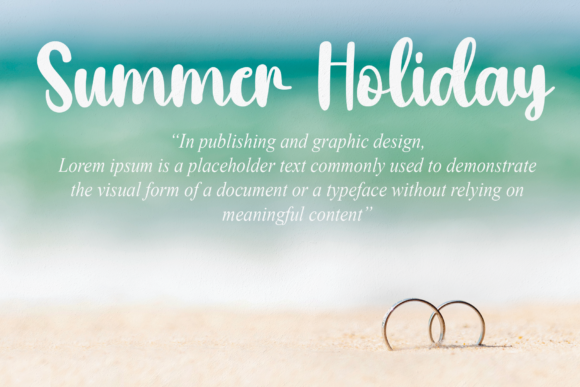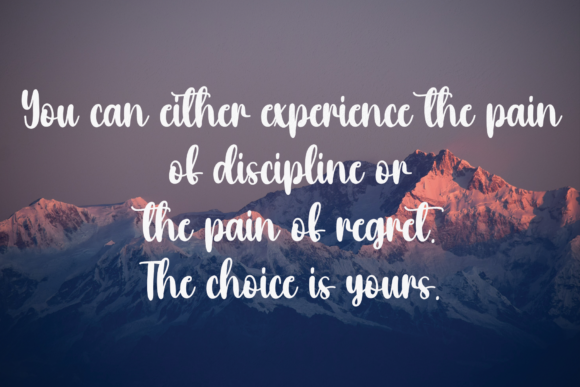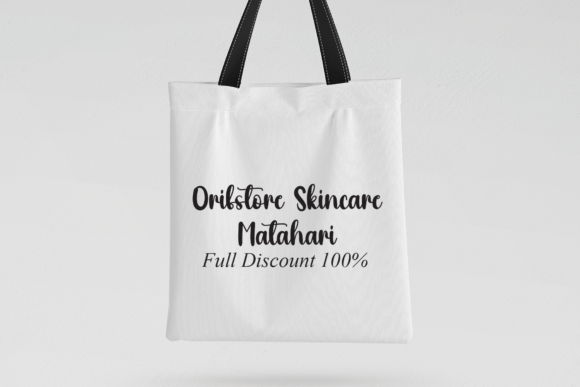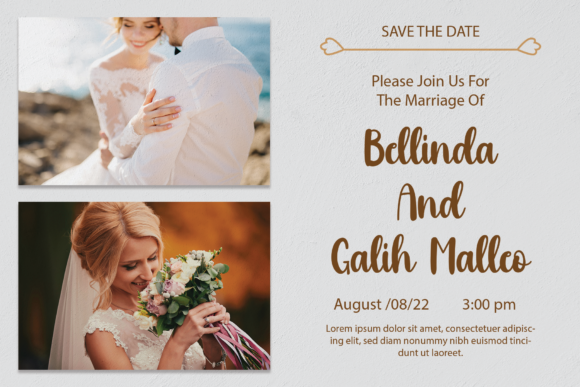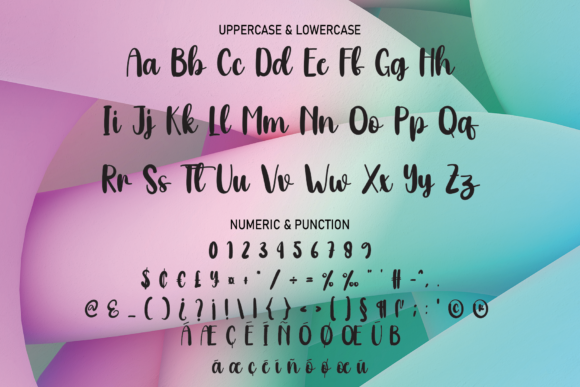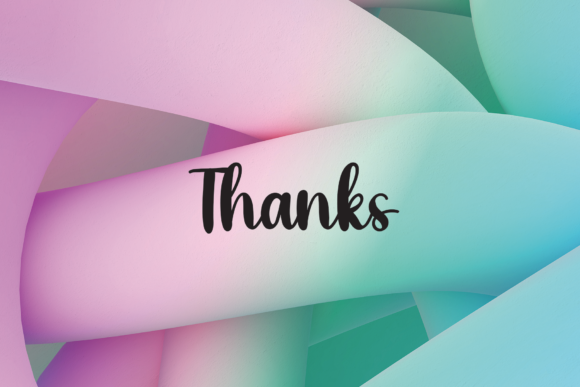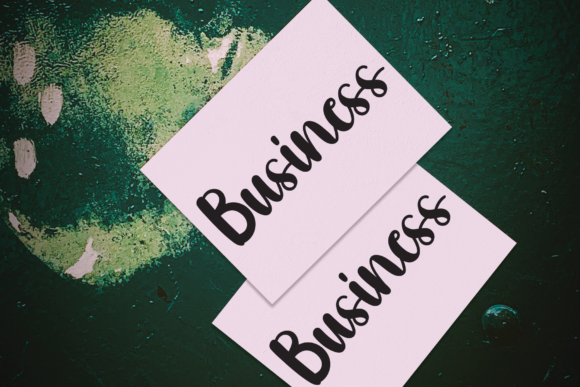
Groovy Font
About Groovy Font
Groovy is a modern and stylish script font that brings a touch of flair and sophistication to a wide range of design projects. With its trendy and fashionable appearance, Groovy is an excellent choice for various branding endeavors, including logos, t-shirt printing, and creative products.
When used in logo design and branding, Groovy makes a bold statement. Its unique and eye-catching letterforms instantly capture attention and create a memorable brand identity. Whether you’re working on a contemporary fashion label, a hip cafe, or a cutting-edge tech startup, Groovy’s distinct style adds a touch of modernity and creativity to your brand’s image.
T-shirt printing becomes a creative endeavor with Groovy as your font of choice. The font’s dynamic and expressive strokes lend themselves well to apparel designs, making your t-shirts stand out in a crowd. Whether you’re aiming for a casual, streetwear vibe or a more upscale fashion statement, Groovy’s versatility ensures that it complements your design concept seamlessly.
Creative products, from posters to packaging, come to life with Groovy’s extraordinary style. Its bold and playful nature adds a sense of fun and energy to product designs, capturing the essence of youth and modernity. Whether you’re designing album covers, book covers, or product labels, Groovy’s ability to evoke a trendy and fashionable aesthetic enhances the overall visual impact.
The font’s versatility extends to various contexts, making it a versatile choice for a variety of projects. Its stylish and on-trend appearance makes it suitable for everything from social media graphics to event promotions. Groovy’s ability to adapt to different design requirements ensures that it consistently delivers a fresh and contemporary look.
Groovy’s trendy and fashionable script style is a perfect match for projects that require a touch of modern sophistication. Its dynamic letterforms, bold strokes, and unique flair make it an exceptional choice for branding, t-shirt printing, creative products, and more. With Groovy as part of your design toolkit, you’ll be able to infuse your projects with a sense of style and creativity that resonates with modern audiences.